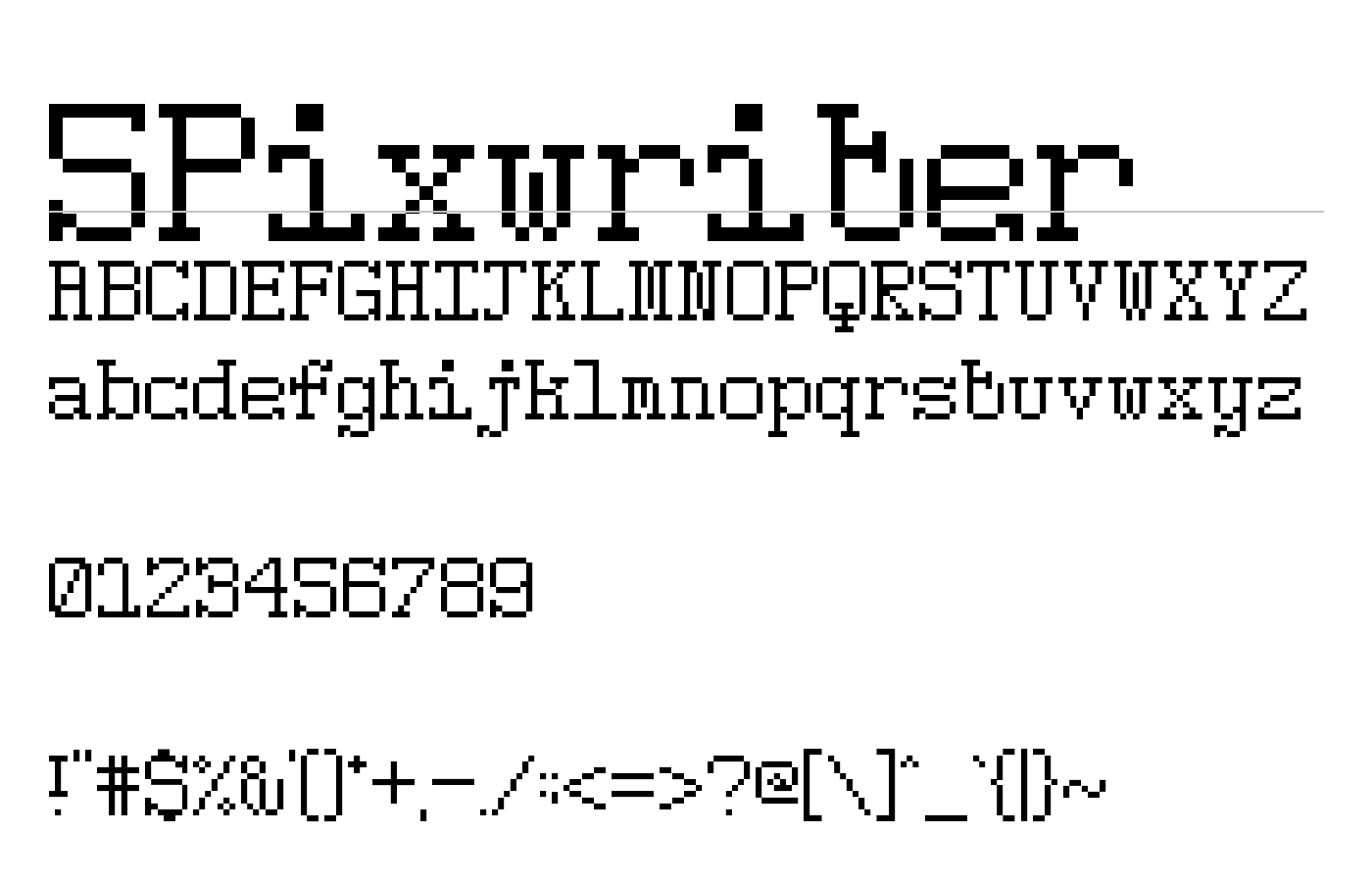
5Pixwriter is a monospaced, slab serif typewriter-style font characterized by its rigid, pixelated block shapes and uniform stroke widths, evoking a retro digital aesthetic. Its low contrast and mechanical construction make it ideal for vintage computer or coding-related designs, lending a nostalgic yet functional feel. This font works best in digital and tech-inspired branding, coding environments, and editorial or poster projects that aim to capture a retro or tech-savvy vibe.
5Pixwriter Font
About 5Pixwriter Font